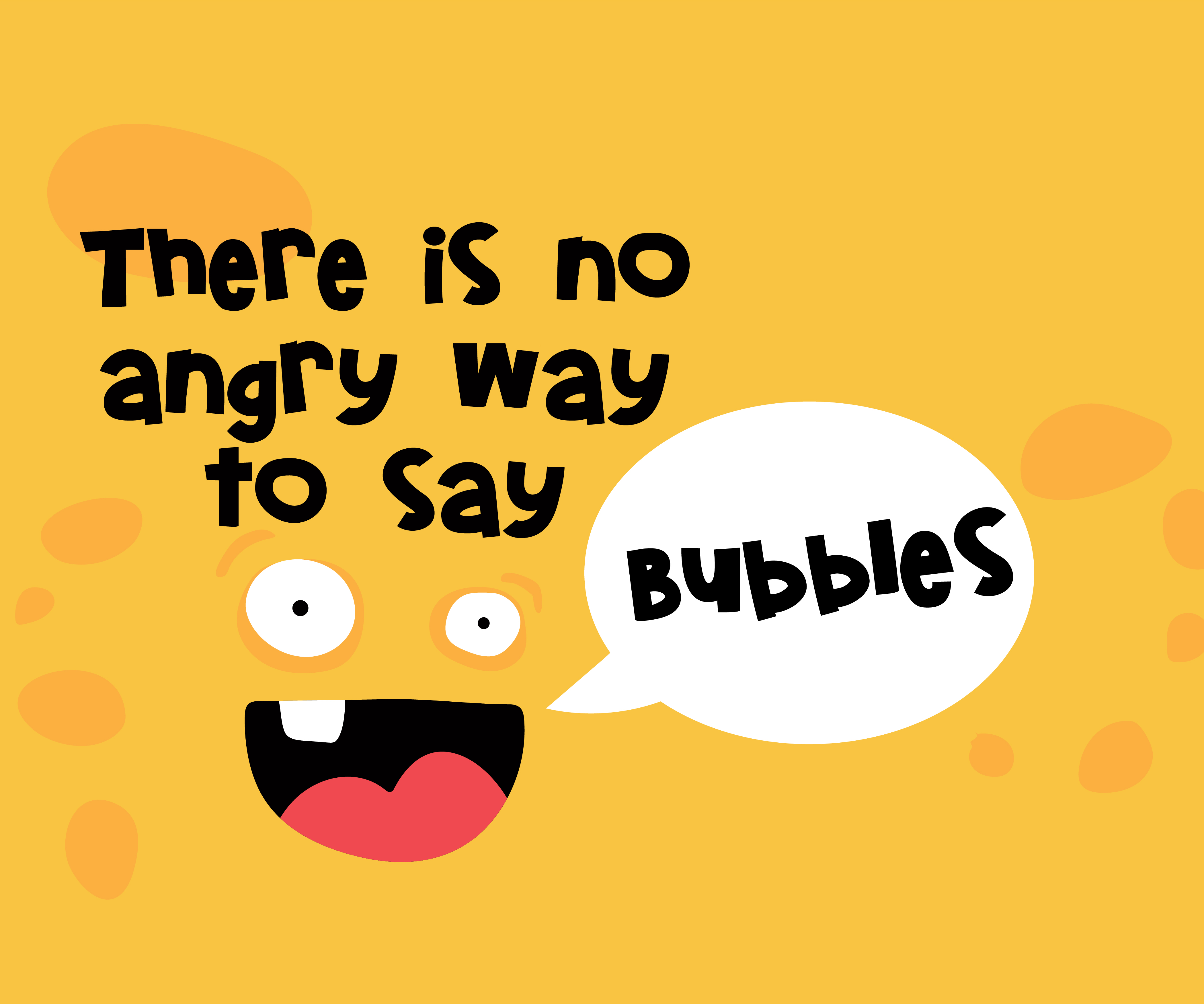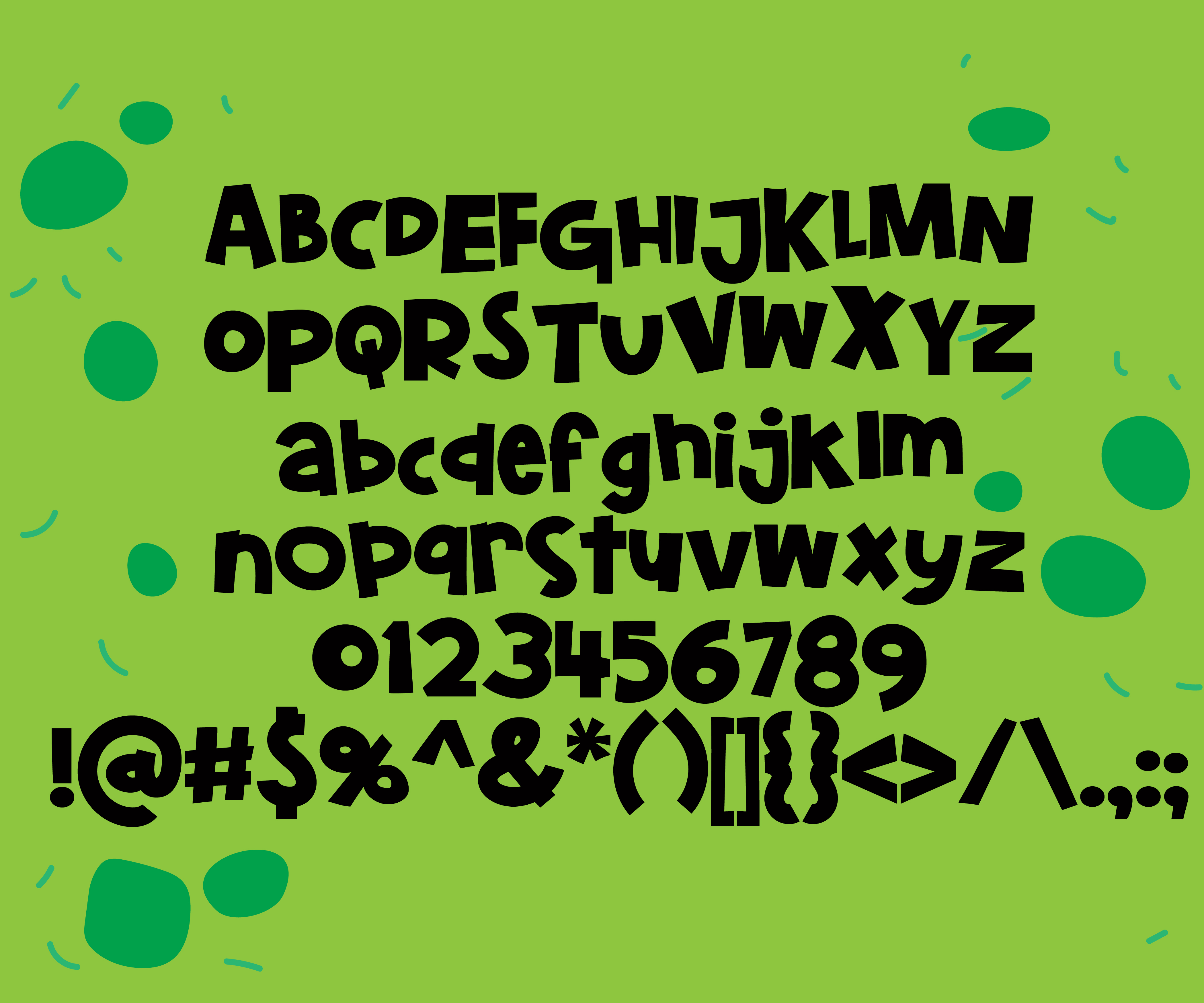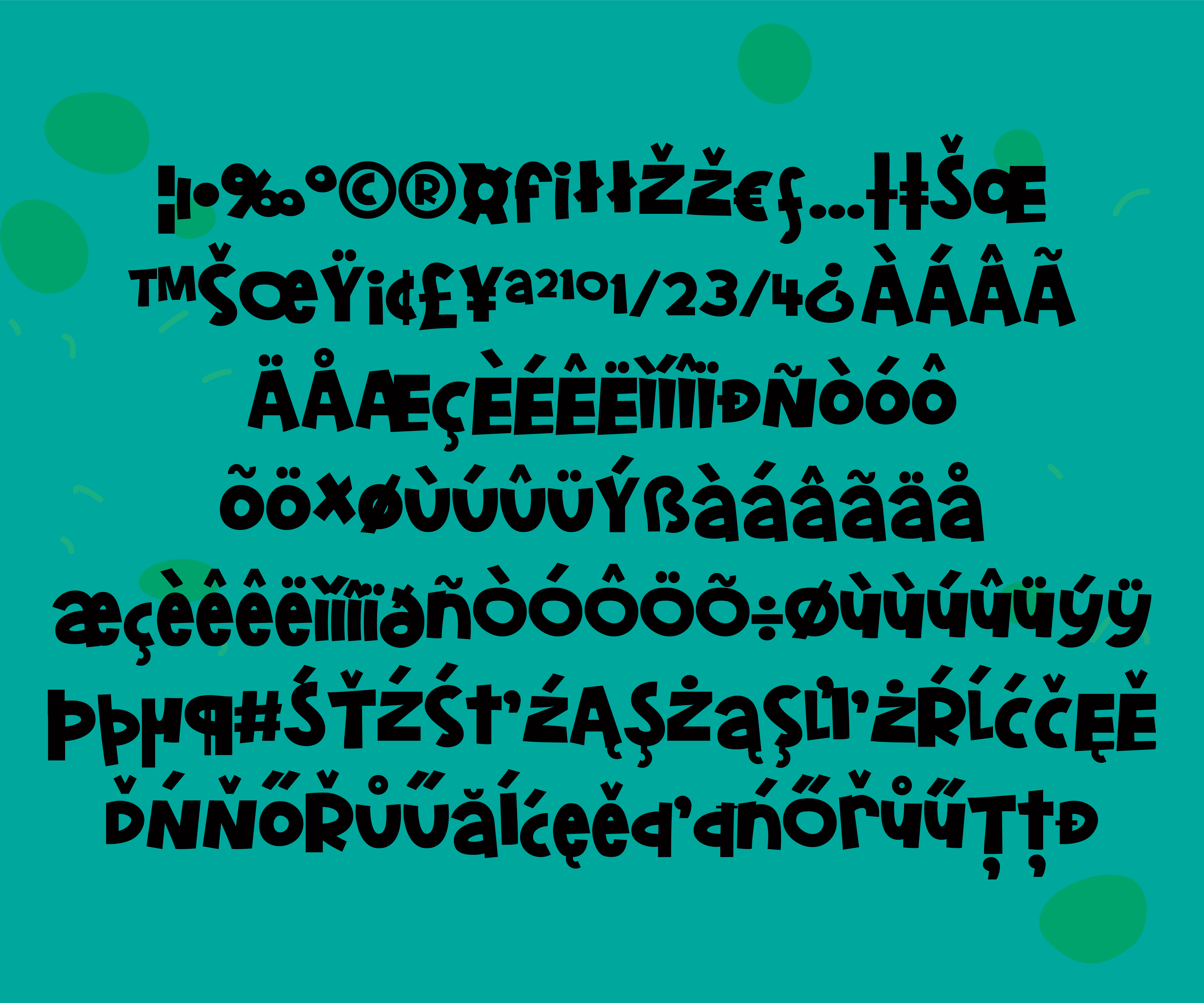
Unleash the Power of Playfulness with Belly Laughs Font
Are you tired of using the same old fonts for your designs? Do you want to add a touch of whimsy and fun to your projects? Look no further than Belly Laughs Font, a delightful display font that’s perfect for creating playful and eye-catching titles, posters, and more.
What is Belly Laughs Font?
Belly Laughs Font is a child-like display font that’s designed to bring a smile to your face. With its bouncy and irregular shape, this font is sure to add a dash of humor and personality to any design project. Whether you’re working on a kids’ party invitation, a fun DIY craft, or a bold advertising campaign, Belly Laughs Font is the perfect choice.
Key Features of Belly Laughs Font
- Child-like charm: Belly Laughs Font has a playful, innocent feel that’s reminiscent of childhood laughter and play.
- Display font: This font is designed to make a statement, with bold and irregular shapes that demand attention.
- Fun and silly feel: Perfect for projects that require a lighthearted and humorous tone.
- Versatile: Use Belly Laughs Font for titles, posters, signs, and any other project that needs a playful touch.
Why Use Belly Laughs Font?
There are many reasons why Belly Laughs Font should be your go-to choice for playful designs. Here are just a few:
- Adds personality: Belly Laughs Font brings a unique and quirky personality to your designs, setting them apart from more traditional fonts.
- Evokes emotions: The playful, child-like nature of this font is sure to evoke feelings of joy and happiness in your audience.
- Easy to read: Despite its playful nature, Belly Laughs Font is surprisingly easy to read, making it perfect for titles and headings.
- Customizable: Experiment with different colors, sizes, and styles to make Belly Laughs Font your own.
Belly Laughs Font is a dream come true for designers and crafters who love to add a personal touch to their projects. Here are some ideas for using this font:
- Kids’ party invitations: Create custom invites that set the tone for a fun and playful party.
- DIY crafts: Use Belly Laughs Font to add a personal touch to handmade crafts, such as signs, banners, and decorations.
- Social media graphics: Add a playful touch to your social media posts with custom graphics featuring Belly Laughs Font.
- Advertising campaigns: Use Belly Laughs Font to create bold and eye-catching ads that grab attention.
Tips for Using Belly Laughs Font
To get the most out of Belly Laughs Font, here are some tips to keep in mind:
- Use it sparingly: Belly Laughs Font is a bold font, so use it sparingly to avoid overwhelming your design.
- Experiment with colors: Try pairing Belly Laughs Font with bright, bold colors to really make it pop.
- Mix and match: Combine Belly Laughs Font with other fonts to create a unique and interesting contrast.
Belly Laughs Font is a one-of-a-kind display font that’s sure to bring a smile to your face. With its playful, child-like charm and versatile design, it’s the perfect choice for designers and crafters who want to add a touch of whimsy to their projects. So why settle for boring, generic fonts when you can unleash the power of playfulness with Belly Laughs Font?